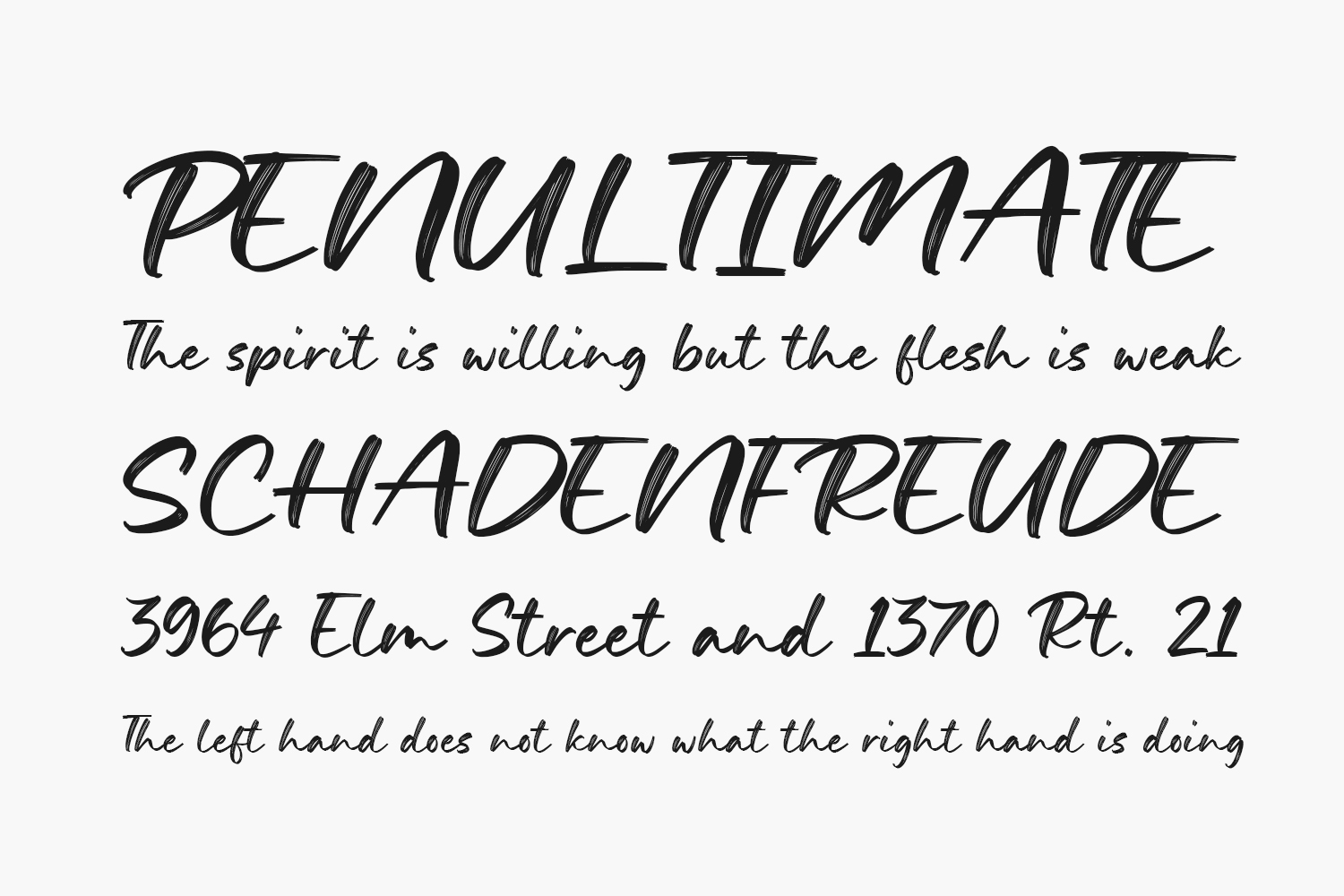
Bright Summer – Free Fresh Hand‑Drawn Script Font with Warm Vibes
Bright Summer is a modern and inviting handwritten script font by Timur Type Studio. Its casual brush-lettered strokes and natural rhythm bring a friendly, warm feel to any design. Perfect for wedding stationery, product packaging, branding, magazine layouts, and social media overlays, this free demo font comes in TTF format for personal use. A commercial license can be purchased through the designer’s store. Bring a touch of summertime charm to your next project with Bright Summer!
Why Choose Bright Summer?
- Casual Brush Style: Smooth, flowing strokes evoke authentic hand-lettering.
- Warm & Inviting: Ideal for designs that require a personal, friendly vibe.
- Multilingual Support: Includes basic Latin plus Cebuano and Swahili.
Where to Use Bright Summer?
- Wedding & Event Invites: Adds a heartfelt personal touch to cards and signage.
- Packaging & Labels: Perfect for artisan products, bath goods, or gift packaging.
- Branding & Logos: Friendly signature-style wordmarks for lifestyle or boutique brands.
- Social Media & Quotes: Use for Instagram Stories, Pinterest graphics, or blog headers.
- Editorial Accents: Behaves well in magazine layouts and feature headers.
Design Tips with Bright Summer
Use Bright Summer at medium sizes (18–36 pt) to showcase its texture. Pair it with a sans-serif like Big River or Logico Sans for clean contrast. Muted pastels or summer-toned palettes enhance its warm feel. Give it generous line spacing and pair with subtle watercolor or paper textures for a handcrafted, relaxed look.